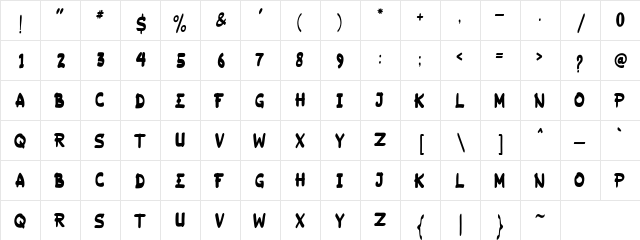
RINDAYA Regular
| Foundry | BESTFONTSTUDIO |
| Designer | Rifan asri |
Design Context for RINDAYA Typeface
RINDAYA is a composed and adaptable typeface that performs quietly and consistently across a wide range of design contexts.